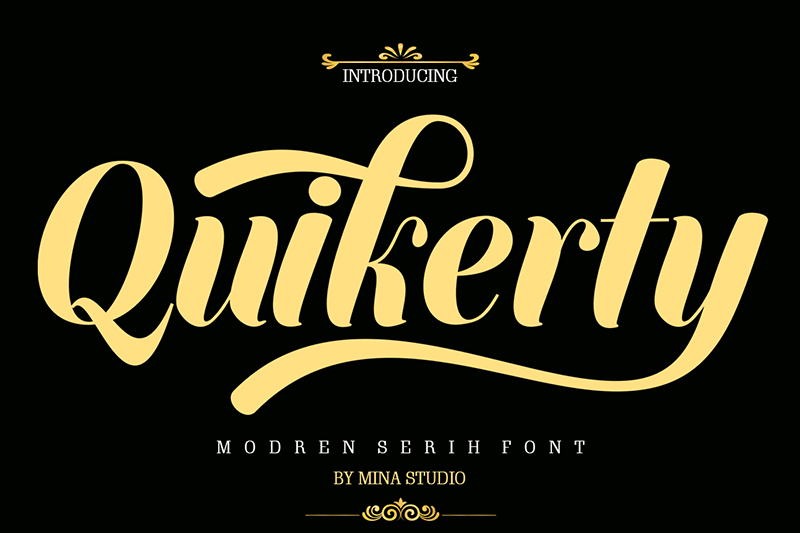
Preview and download Quikerty Font. Created by Mina Studio in Script Old School styles with Free for personal use license.
Quikerty is an exquisitely handwritten font, expertly designed to be a true favorite. It maintains a classy calligraphic influence while feeling contemporary and fresh. Fall in love with it and take your projects to the highest level! This font is PUA coded which means you can access all glyphs with ease! It features varied baselines, smooth lines, gorgeous glyphs and stunning alternatives. By installing or using this font, you are agreeing to the Product Use Agreement: - This font is a FULL VERSION and FOR PERSONAL USE ONLY. NO COMMERCIAL USE PERMITTED! Thank you. |